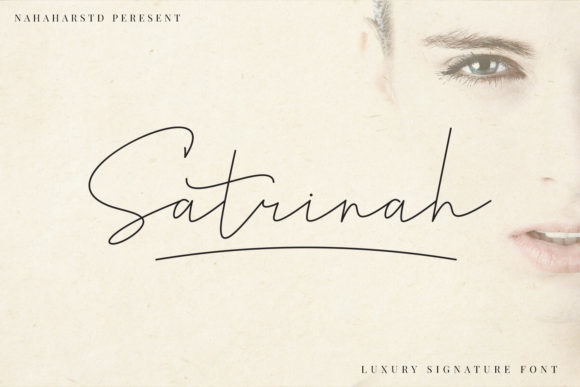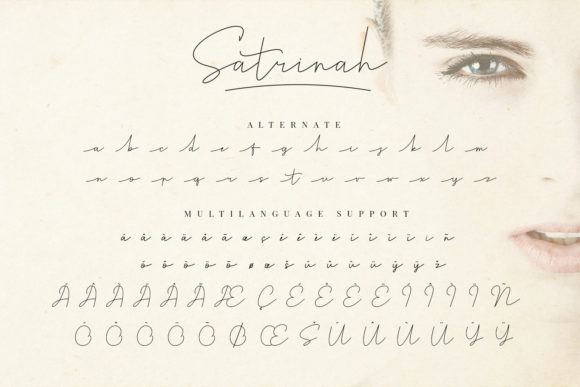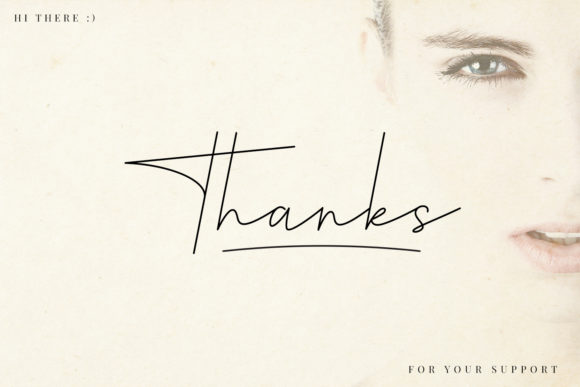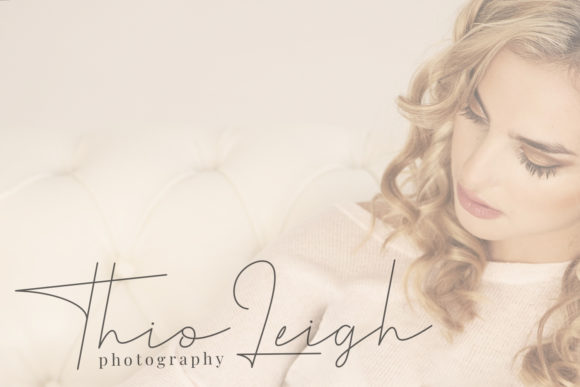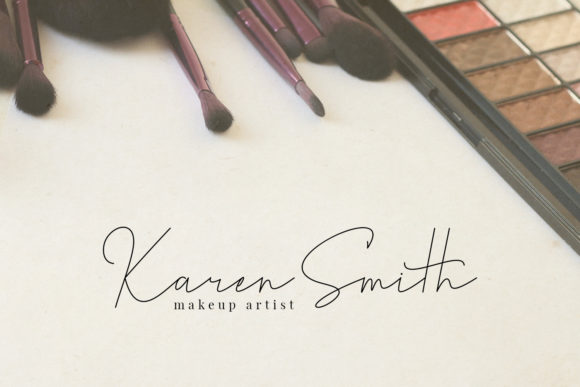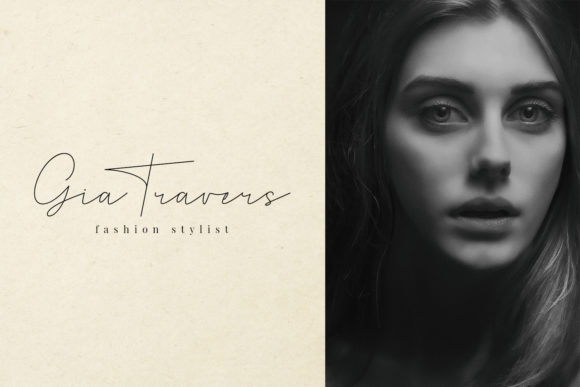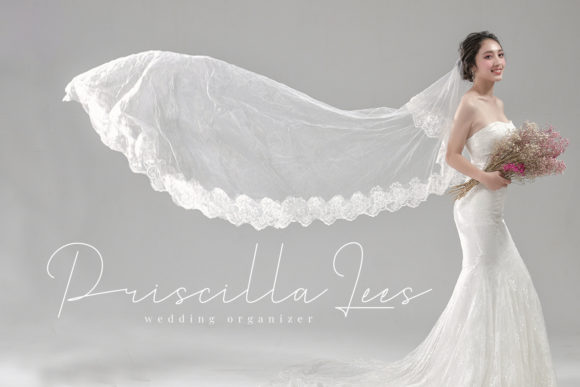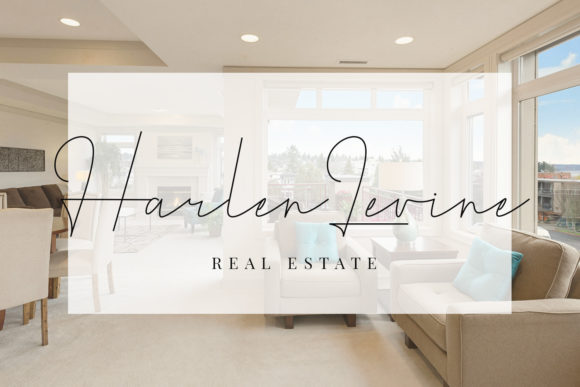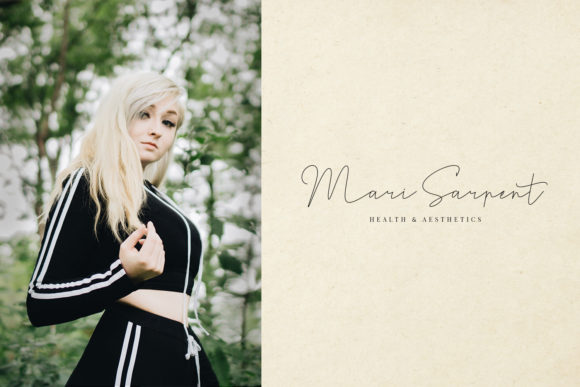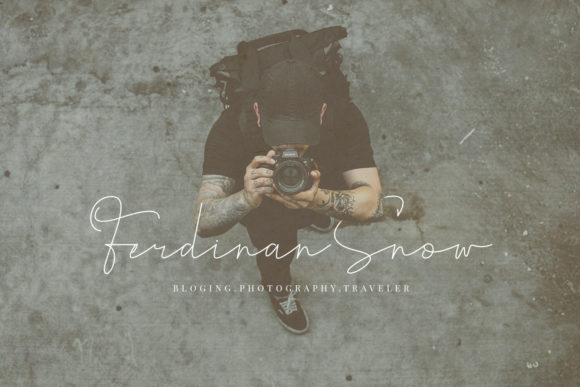
Satrinah Font
About Satrinah Font
Satrinah is a stylish font carefully created with a touch of elegance. This versatility will appeal to a wide range of crafty ideas, from letterheads and titles, to stationery.